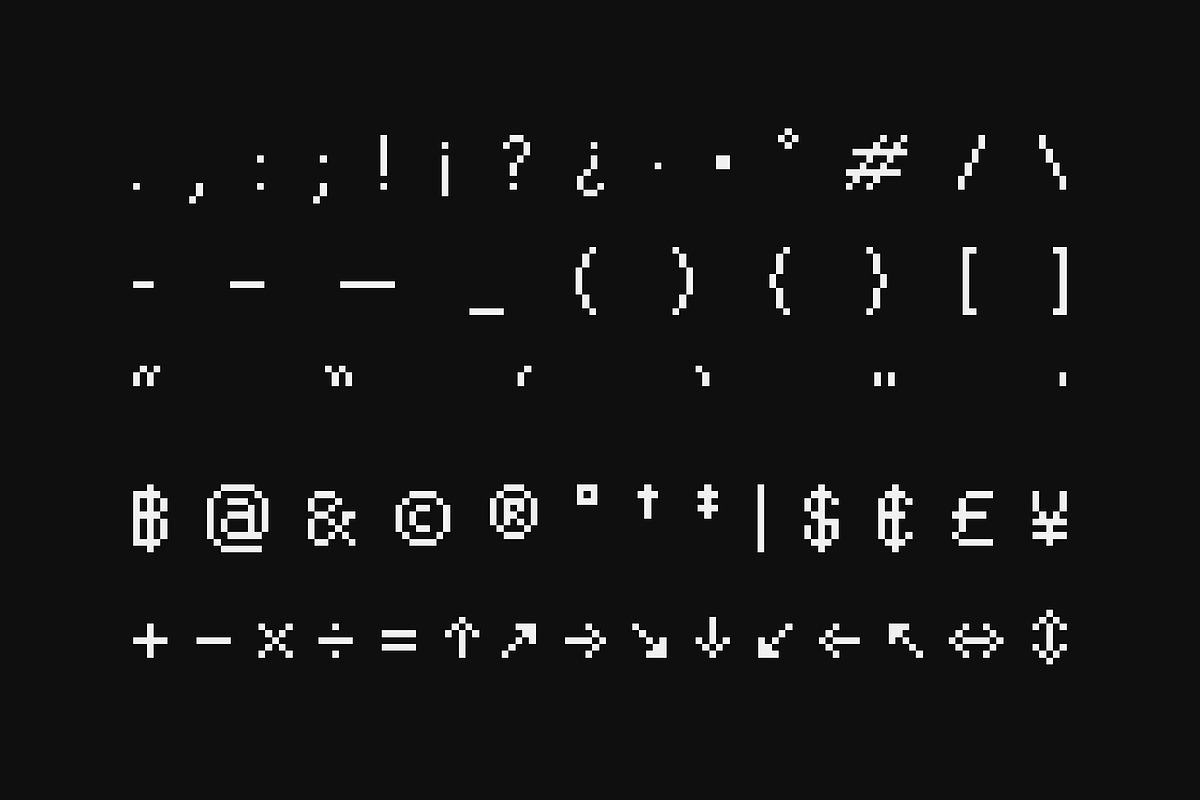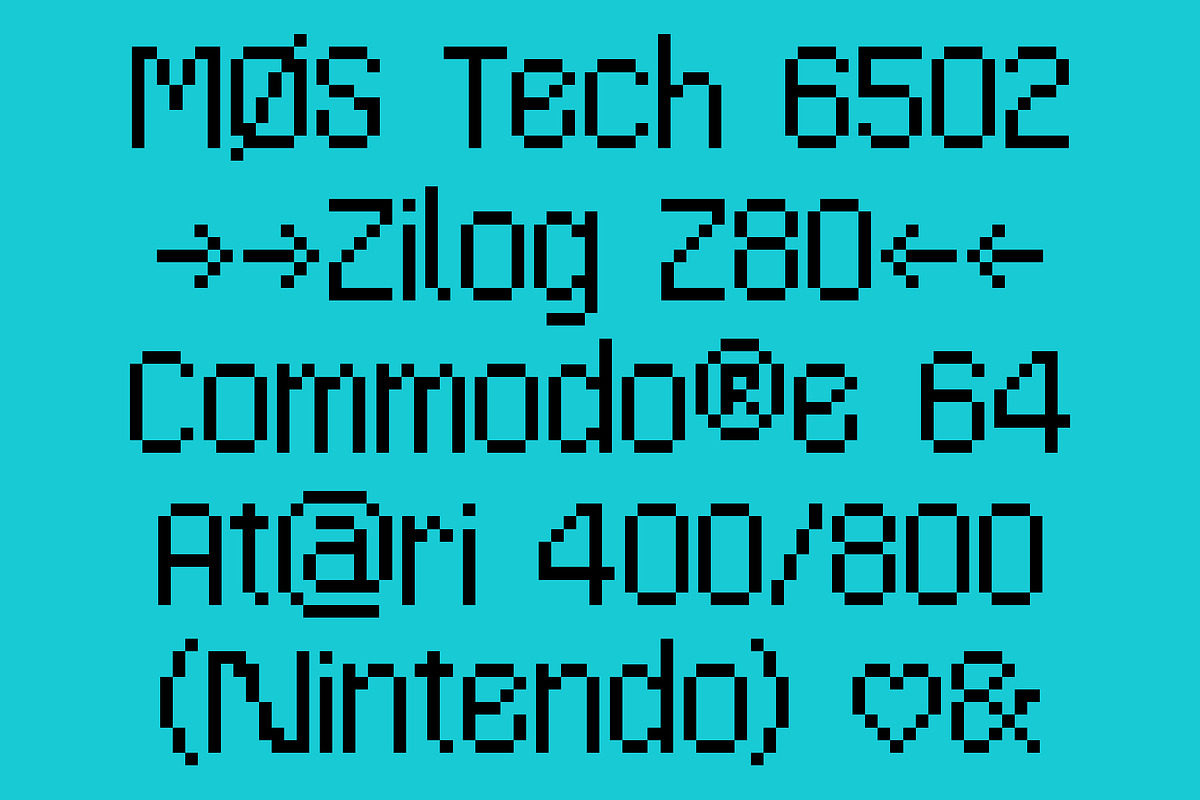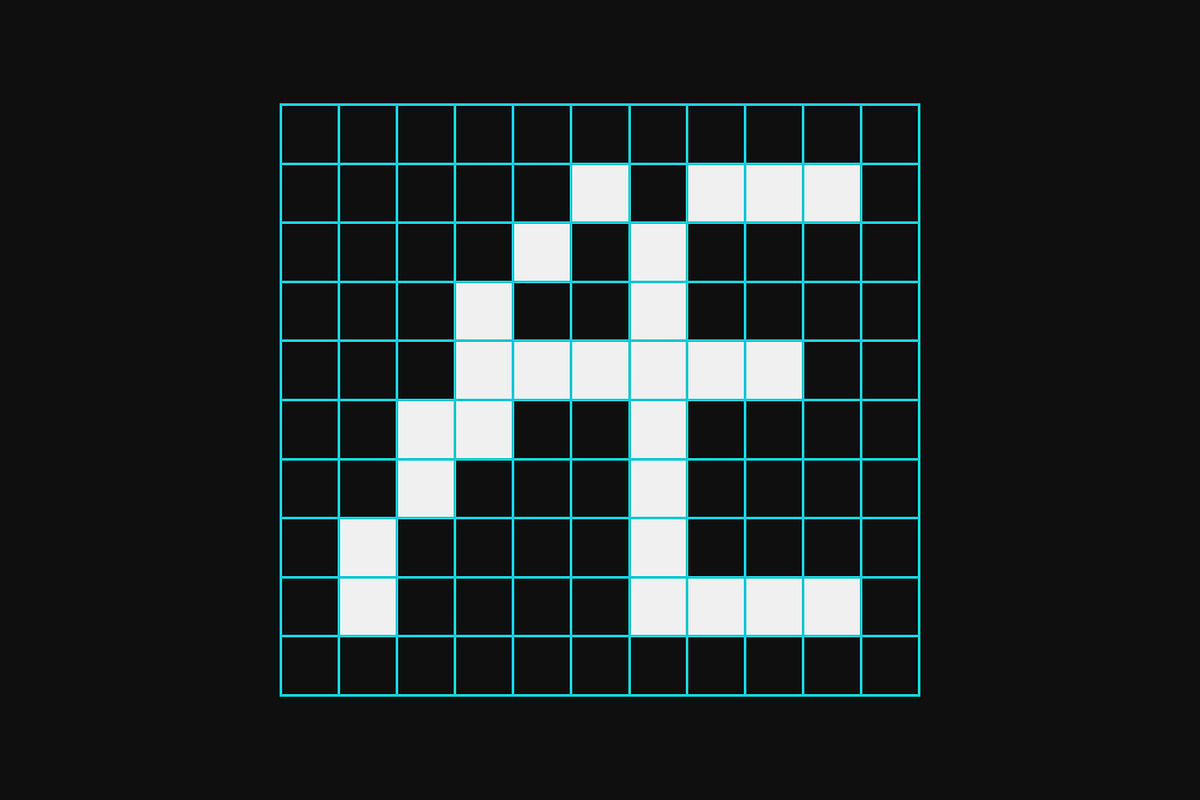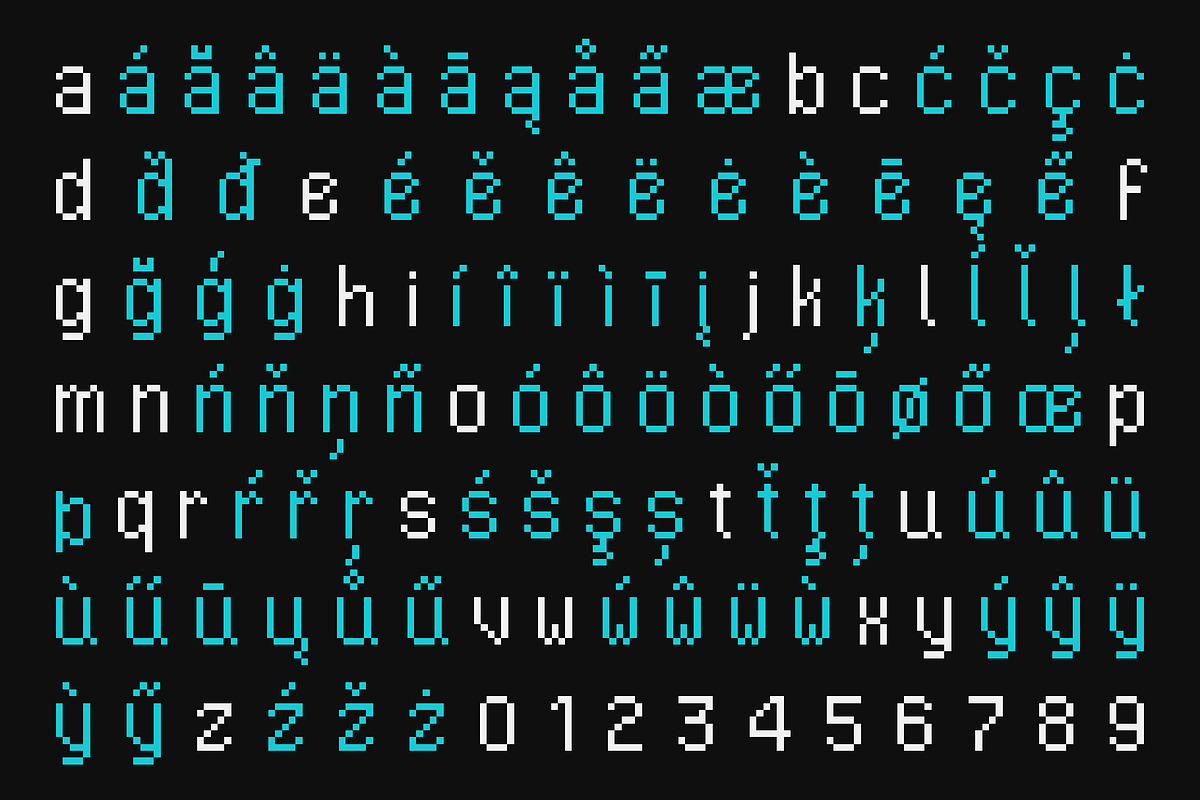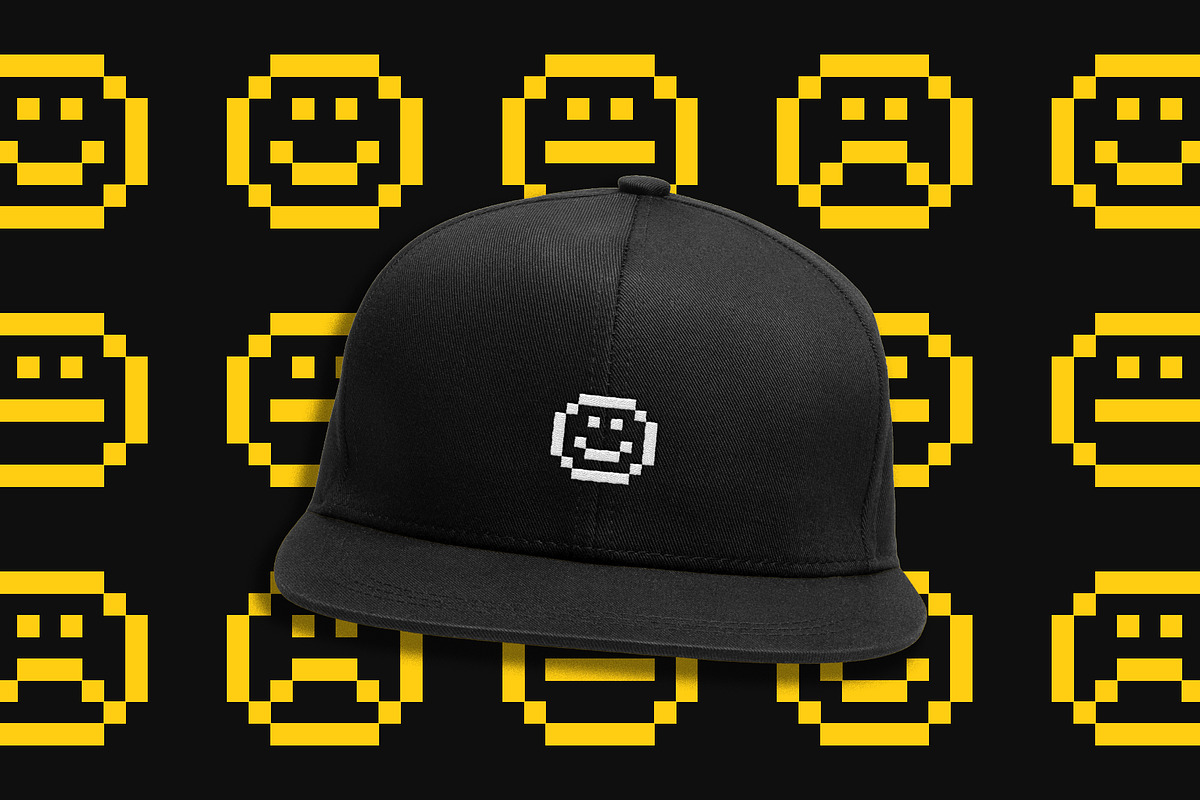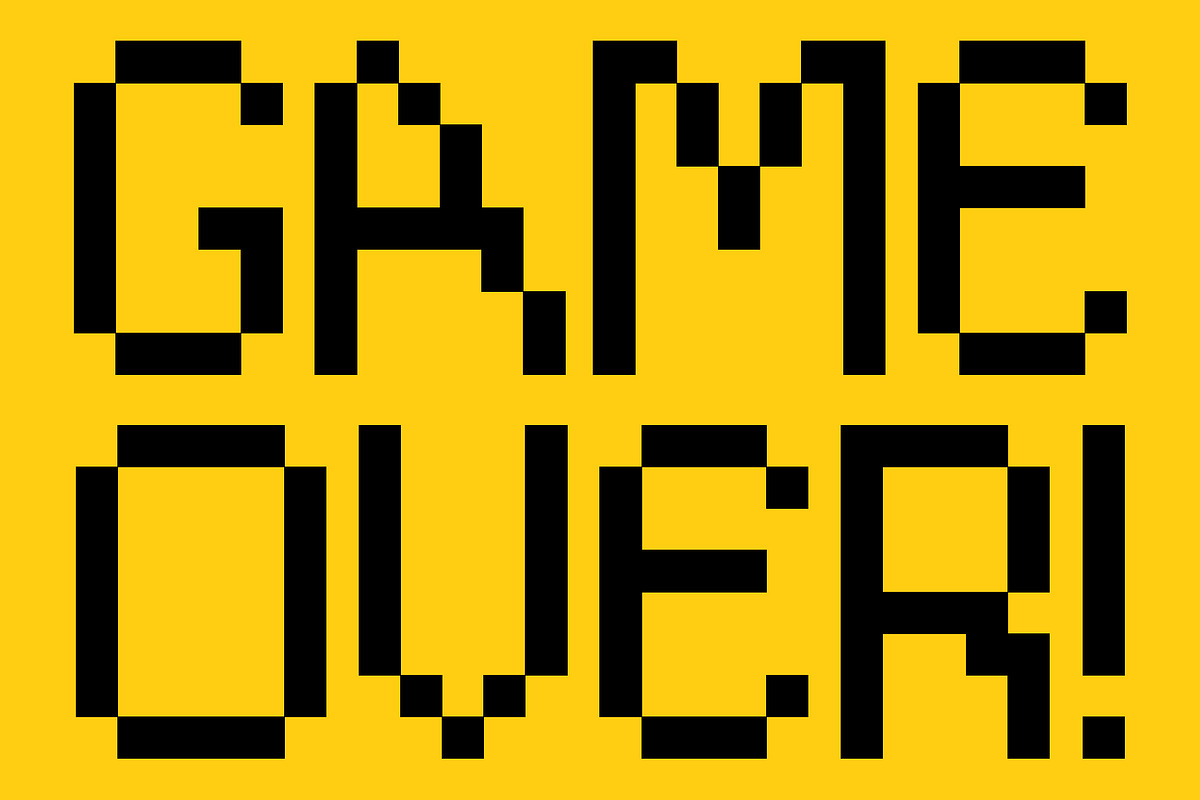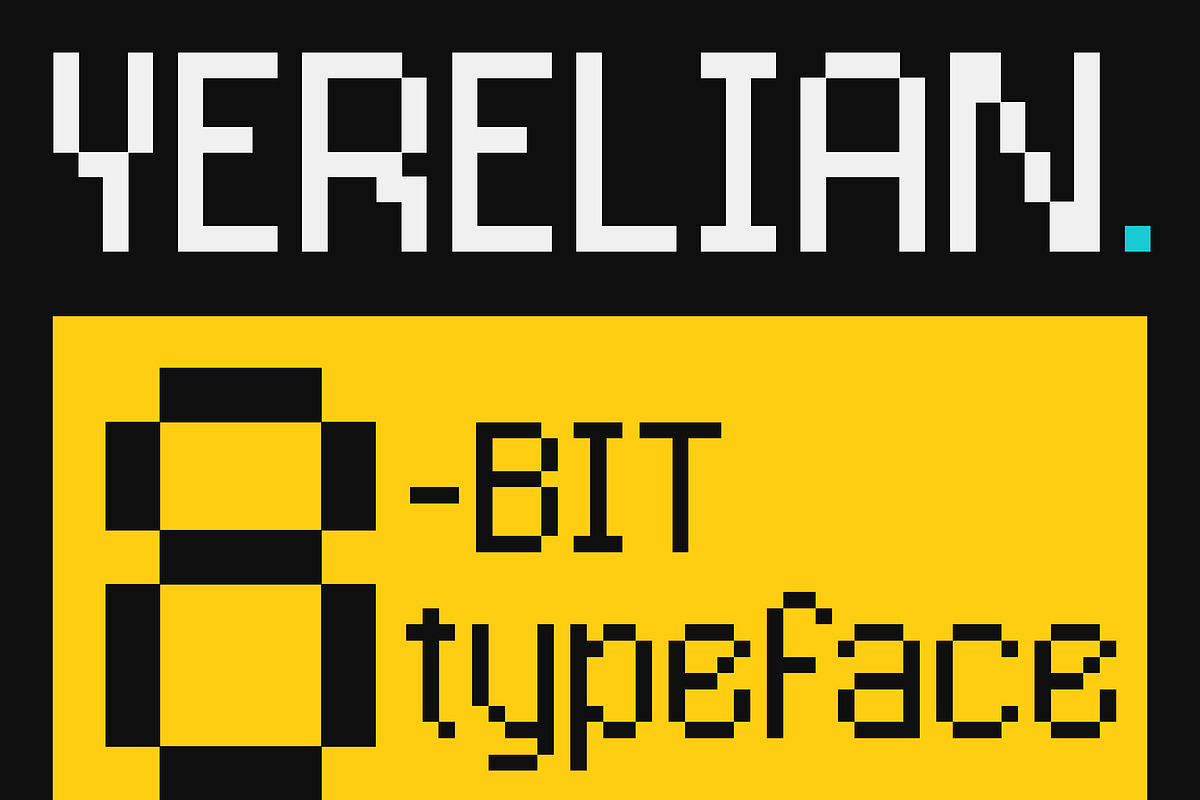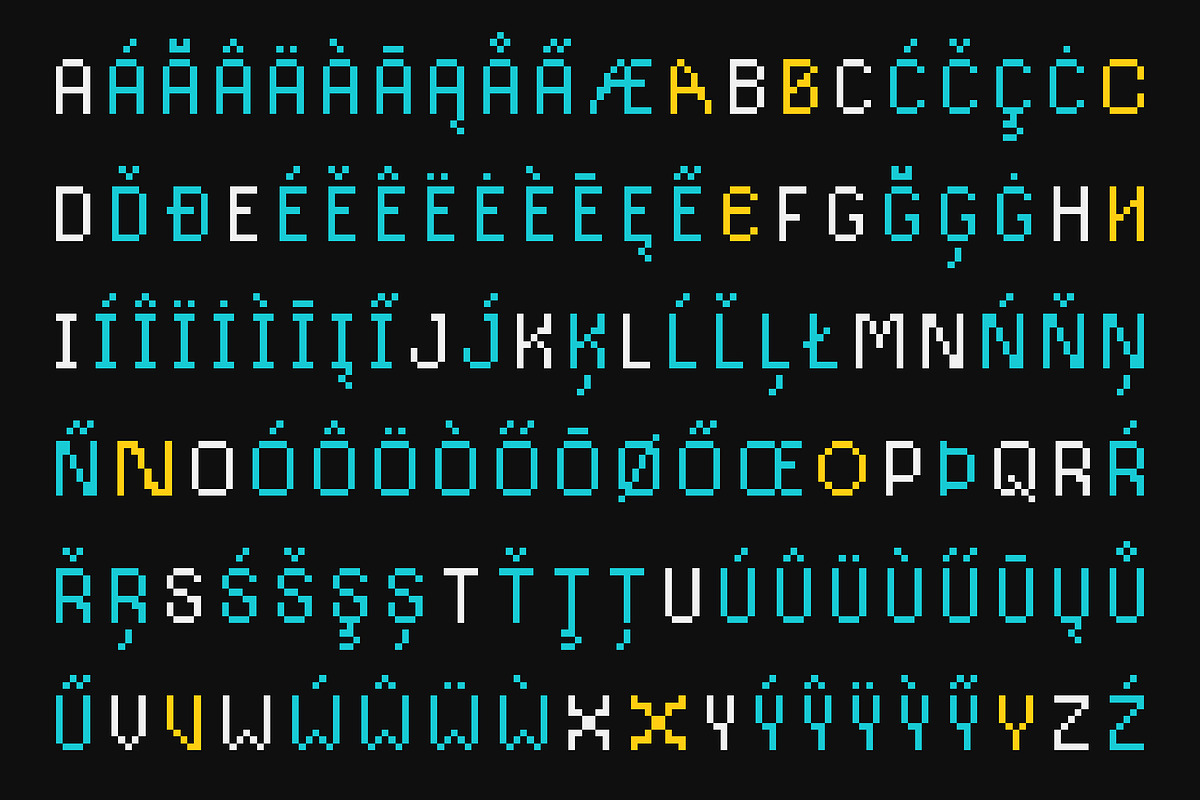
Yerelian
Meet Yerelian, a pixel-perfect tribute to the golden age of digital design. Inspired by the bold, playful spirit of early arcade games and 8-bit interfaces, Yerelian captures the charm of low-resolution type while delivering crisp, modern versatility. Every character is built on a strict grid, giving your work that unmistakable retro authenticity, whether you're designing for games, merch, or nostalgic brand moments. With its geometric rhythm and punchy personality, Yerelian isn’t just a typeface...it’s a throwback experience!